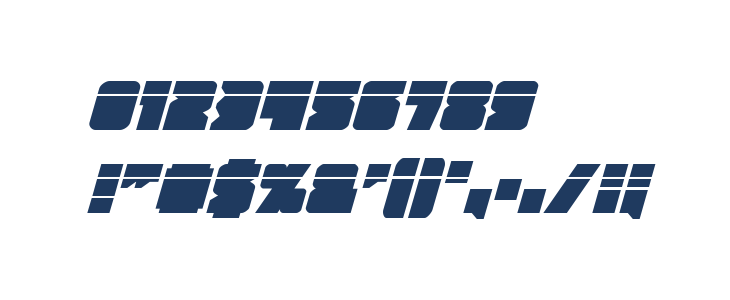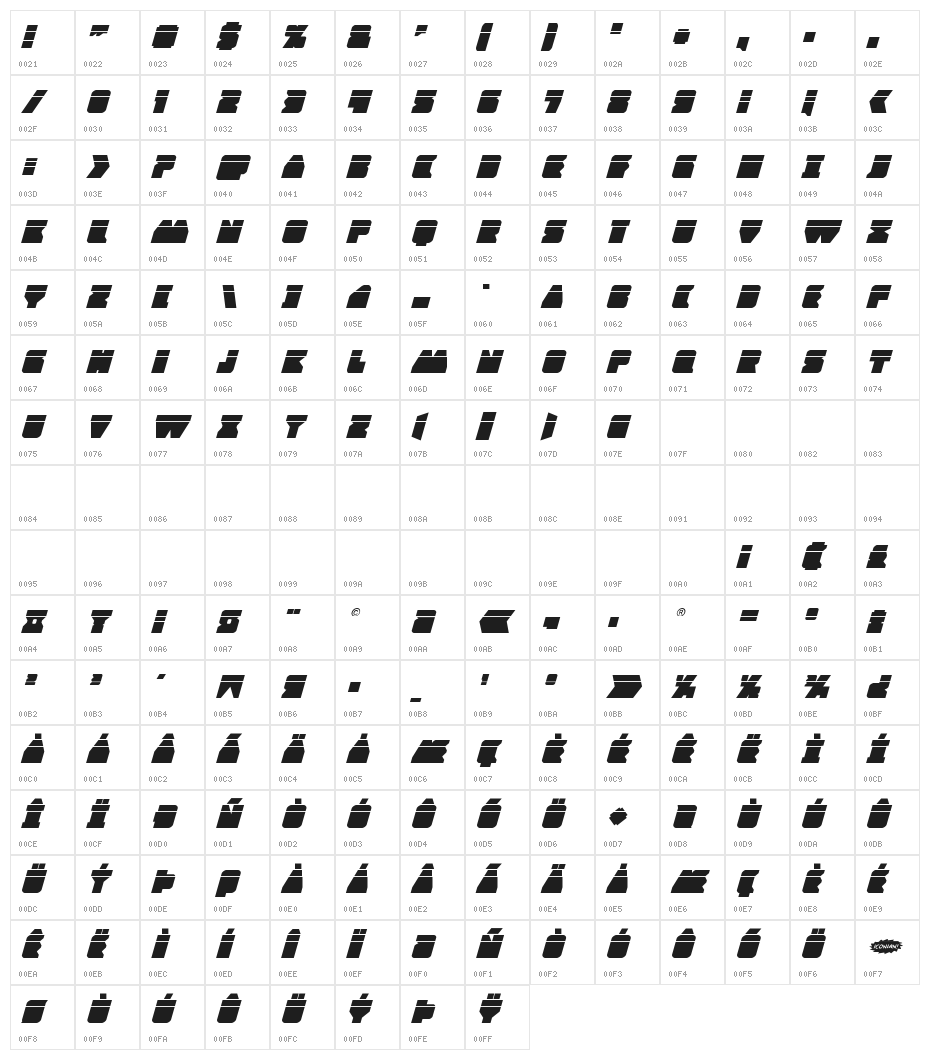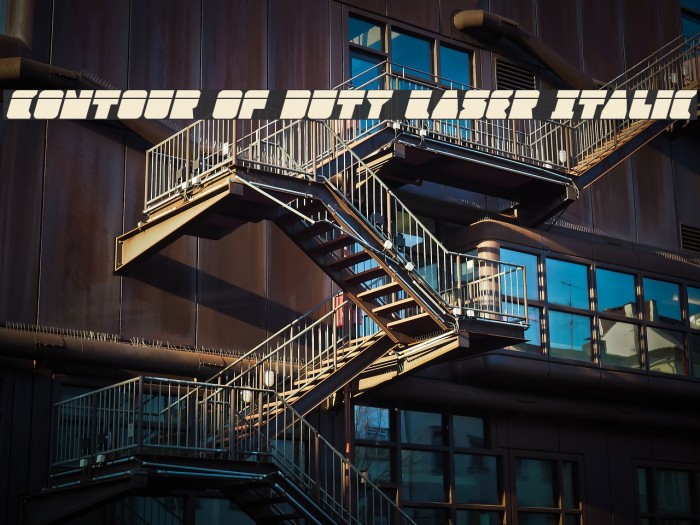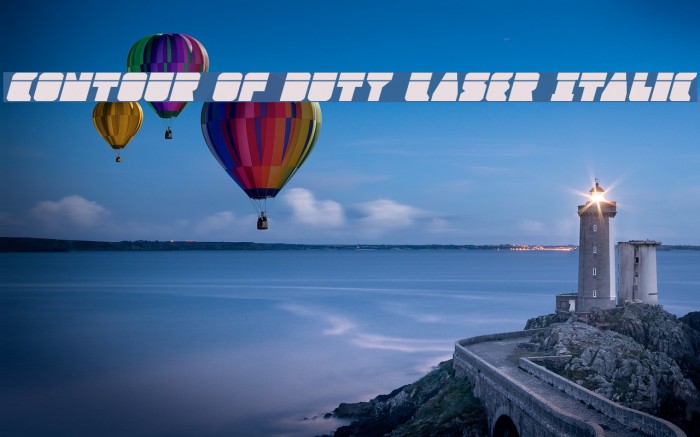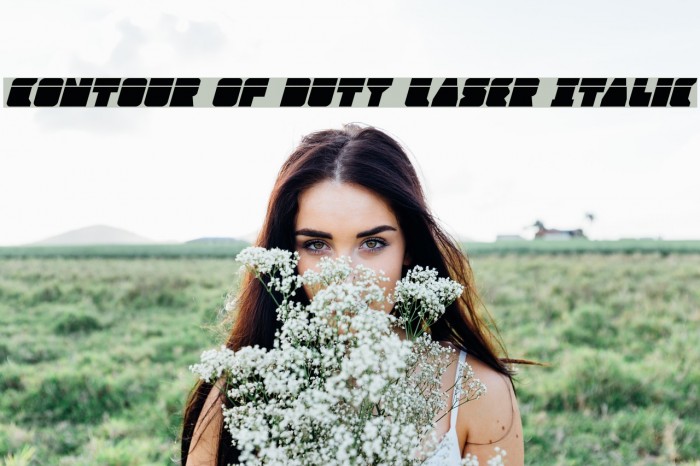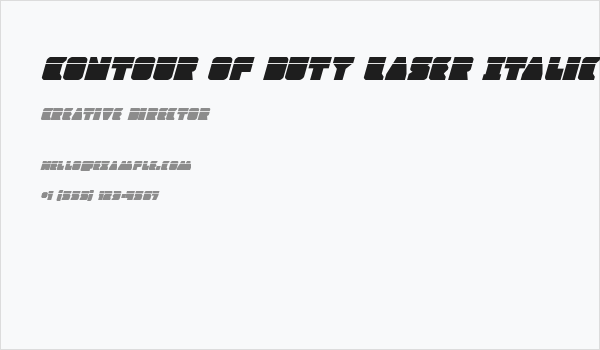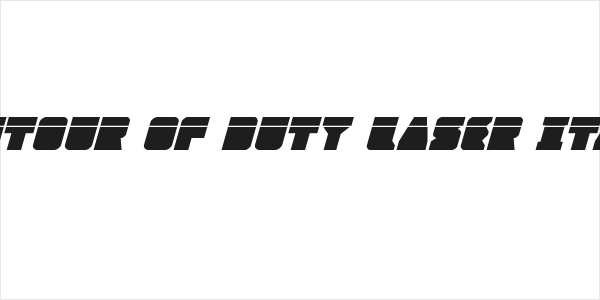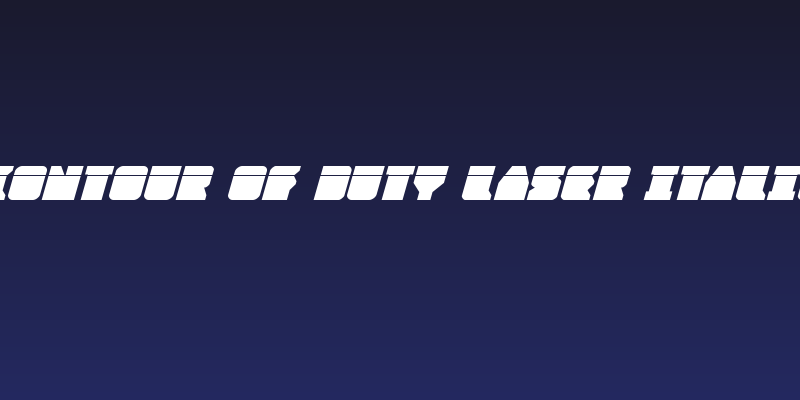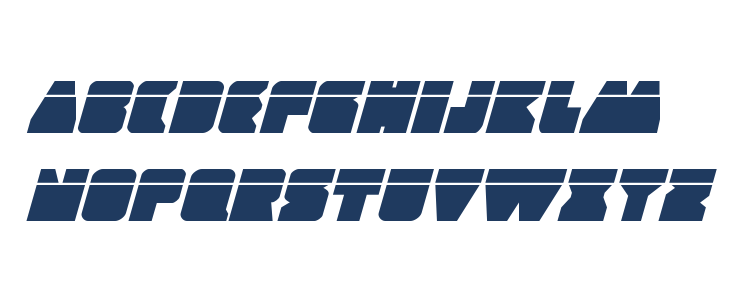
Contour of Duty Laser Italic Font
Contour of Duty Laser Italic Description
This font features a bold and futuristic design with a strong geometric influence. The characters are heavily stylized with sharp angles and a slanted orientation, giving it a dynamic and energetic appearance. The thick strokes and solid fills create a sense of power and modernity, making it stand out in any design. The uppercase and lowercase letters maintain a consistent style, while the numerals and special characters are designed to match the overall aesthetic. This font is ideal for projects that require a bold statement and a contemporary feel.
| Proposed Projects | Ideal for video game titles, tech branding, sci-fi posters, and modern advertising. |